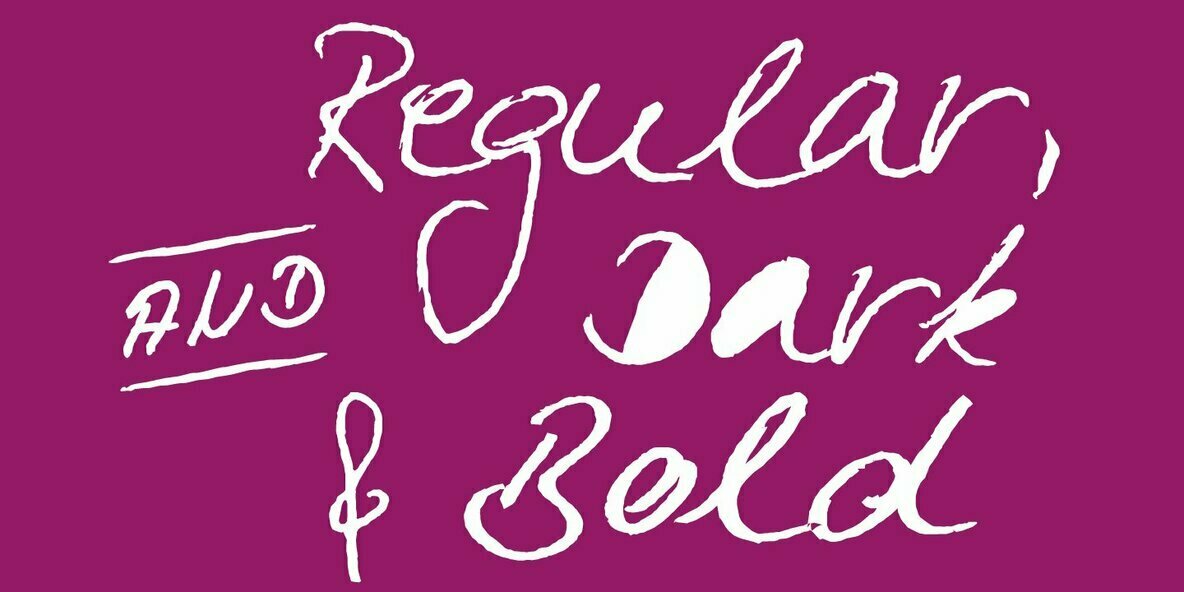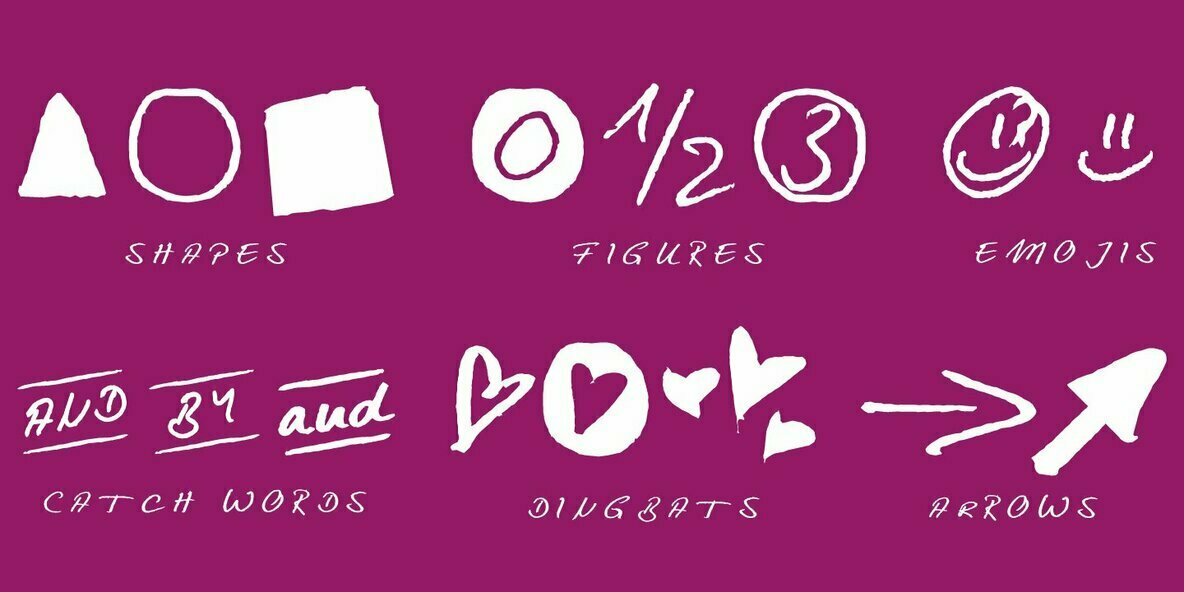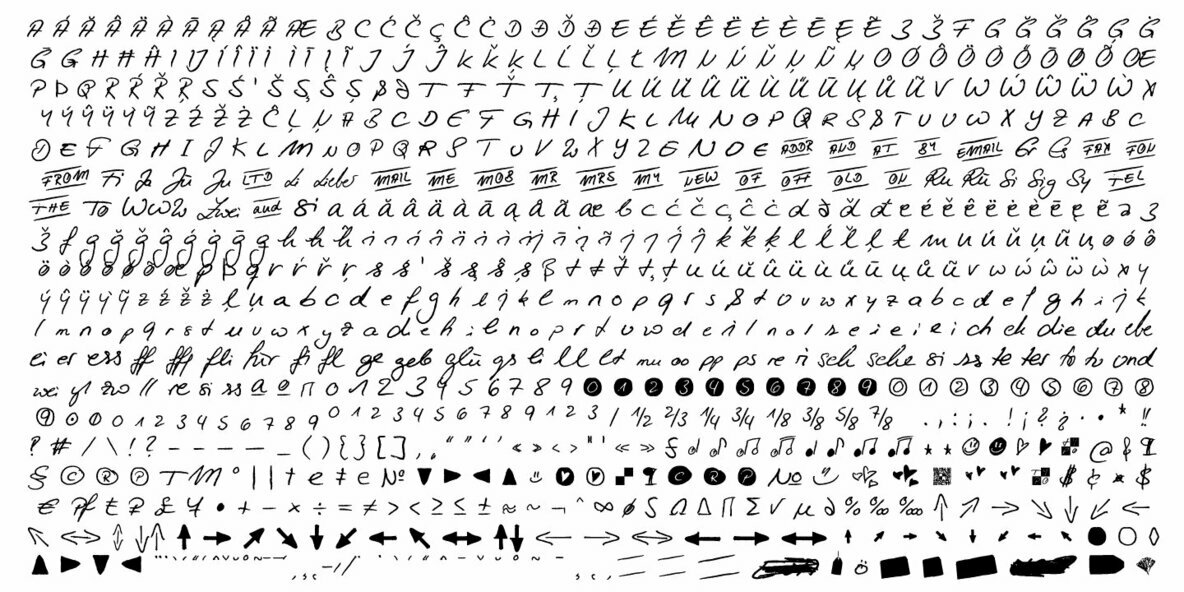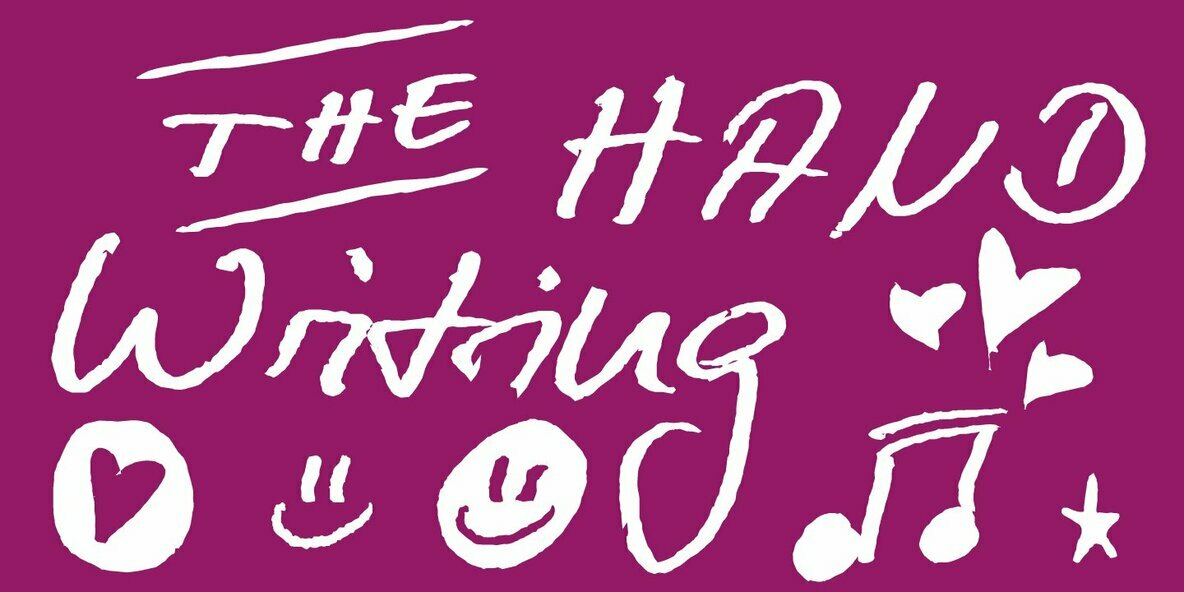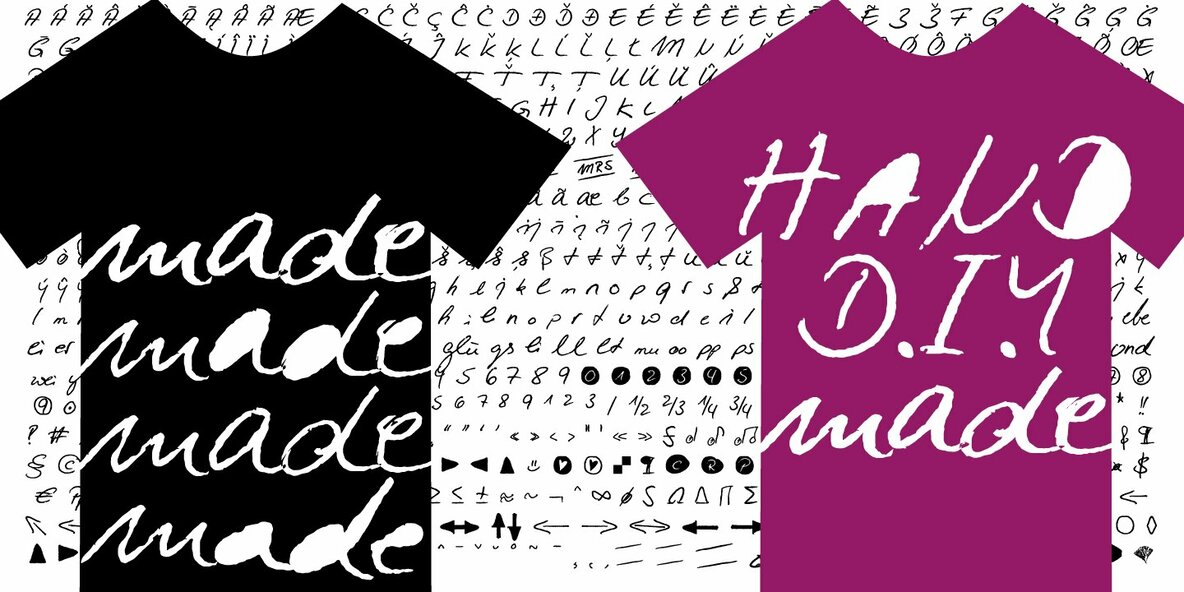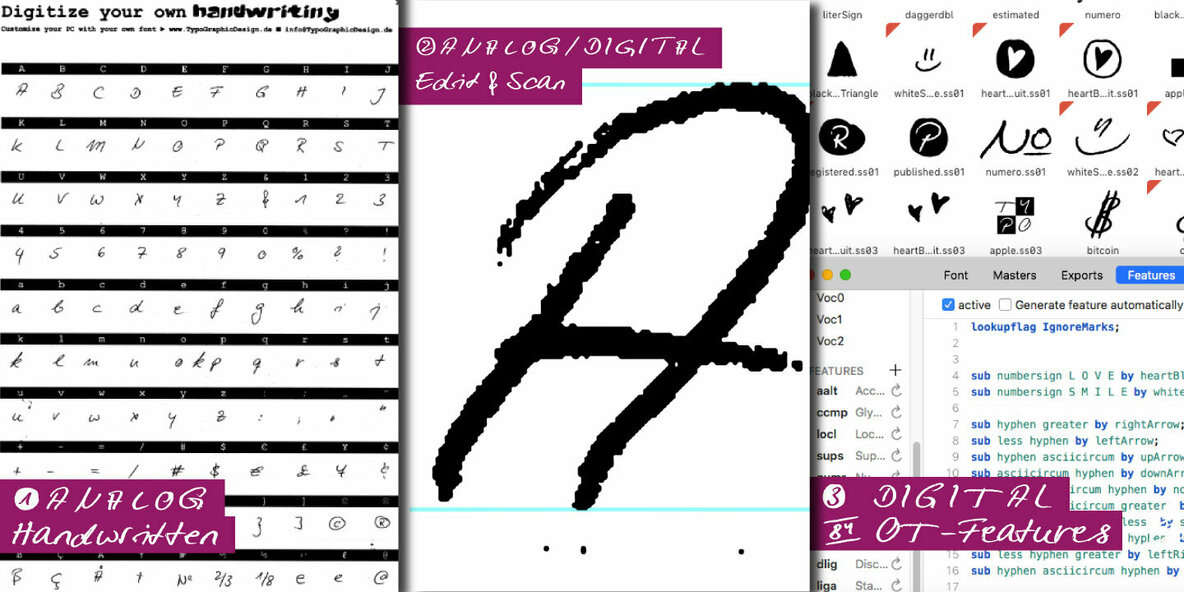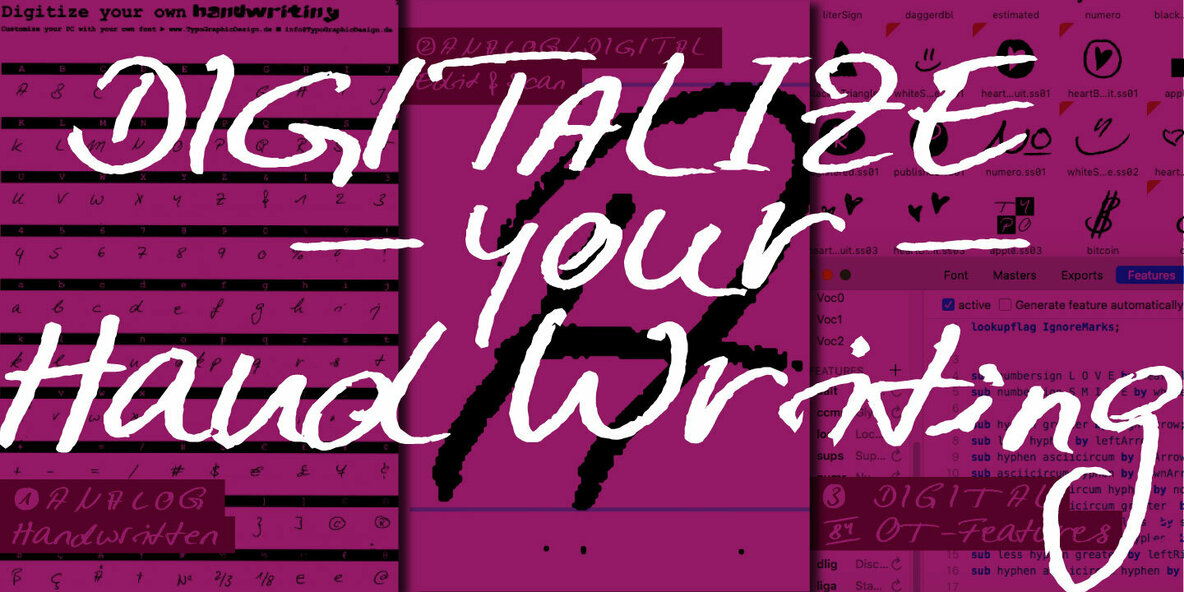
Hand Writing of Janina Font
The typeface Hand Writing of Janina is designed from 2021 for the font foundry Typo Graphic Design by Janina Fels & Manuel Viergutz.
The character of the handwritten script typeface is rough, ruggend and raw. With state-of-the-art OpenType-Feature (like Contextual Alternates (calt) and Stylistic Alternates (salt)). Each uppercase and each lowercase letter has automatically alternated two variations to bring humanly-random characteristics of handwriting to life.
4 font-styles (Book, Bold, Dark & Icons) with 786 glyphs (Latin 3) incl. 100+ decorative extras like icons, arrows, catch words, dingbats, emojis, symbols, geometric shapes (type the word #LOVE for or #SMILE for as OpenType-Feature dlig) and stylistic alternates.
For use in logos, magazines, posters, advertisement plus as webfont for decorative headlines. The font works best for display size.
■ Font Name: Hand Writing of Janina
■ Font Styles: 4 font-styles (Book, Bold, Dark, Icon) + DEMO (with reduced glyph-set)
■ Font Category: Display Script for headline size
■ Design Date: 2021
■ Type Designer: Janina Fels, Manuel Viergutz